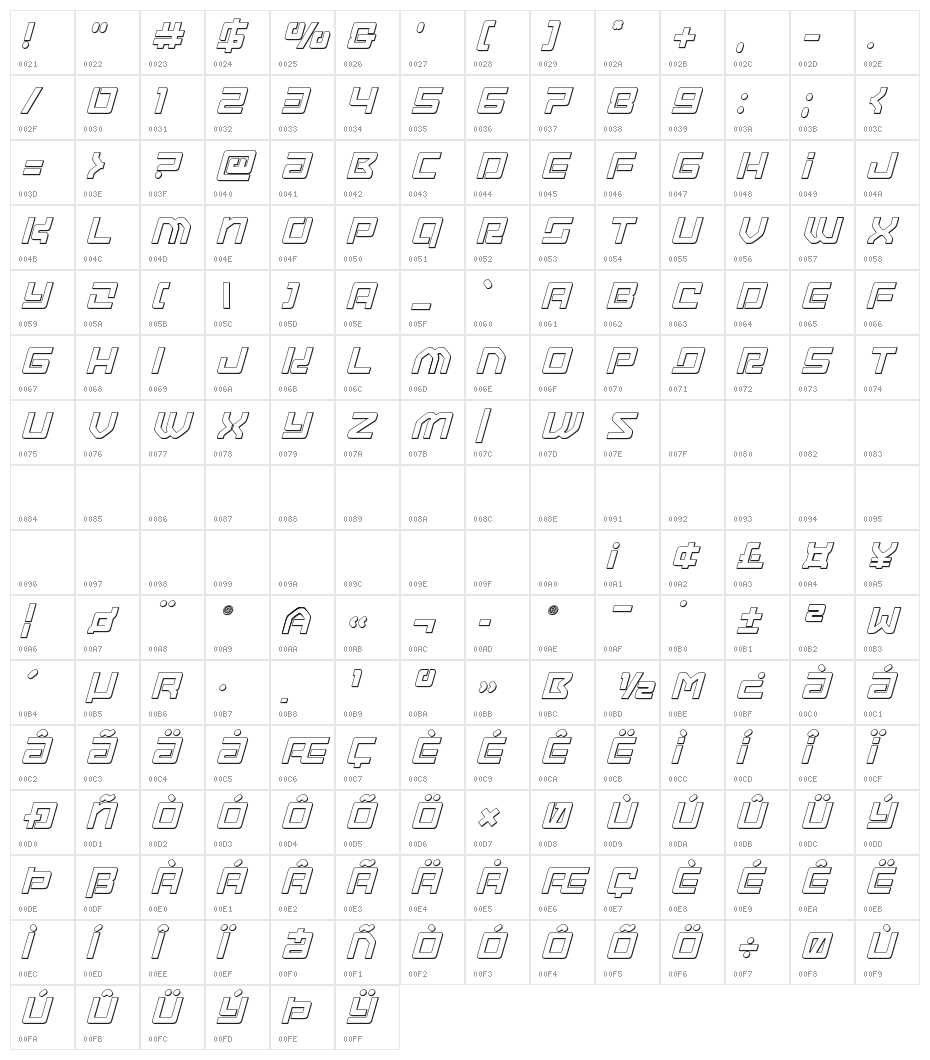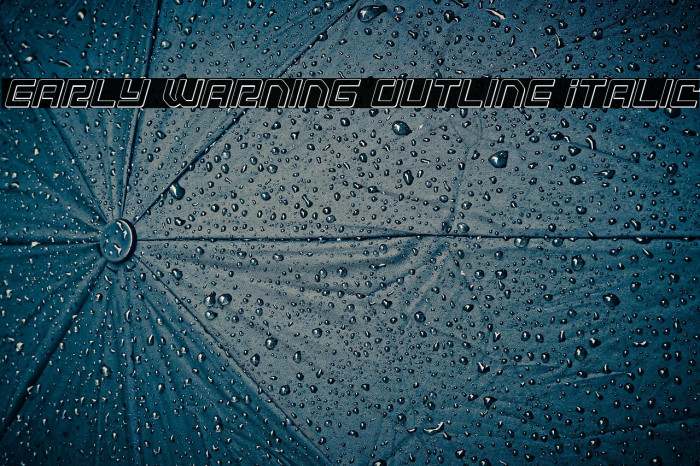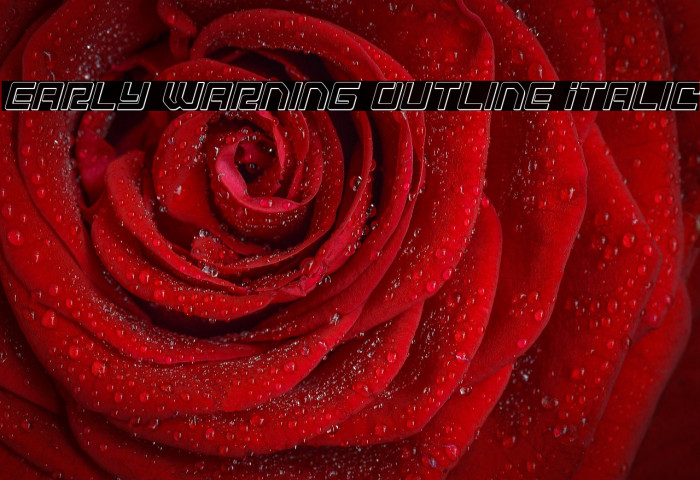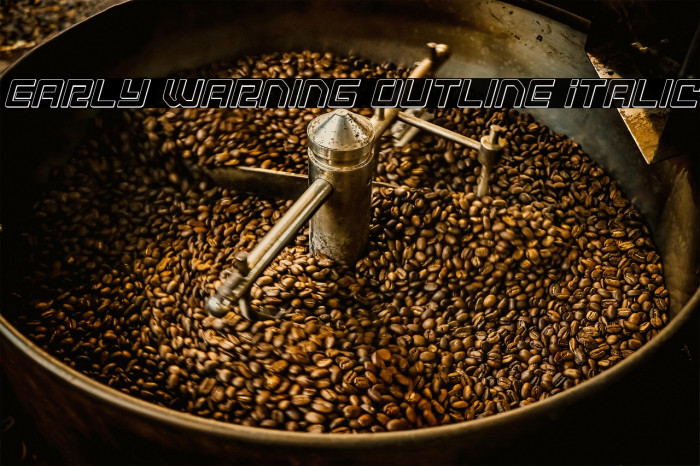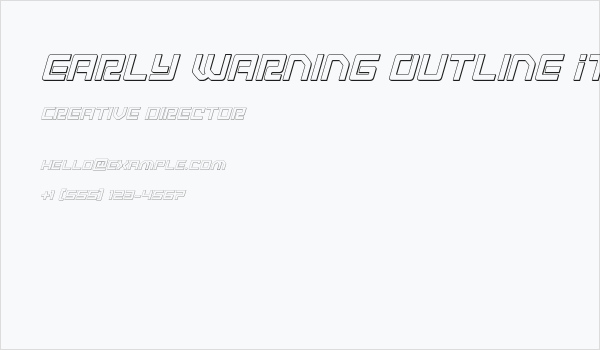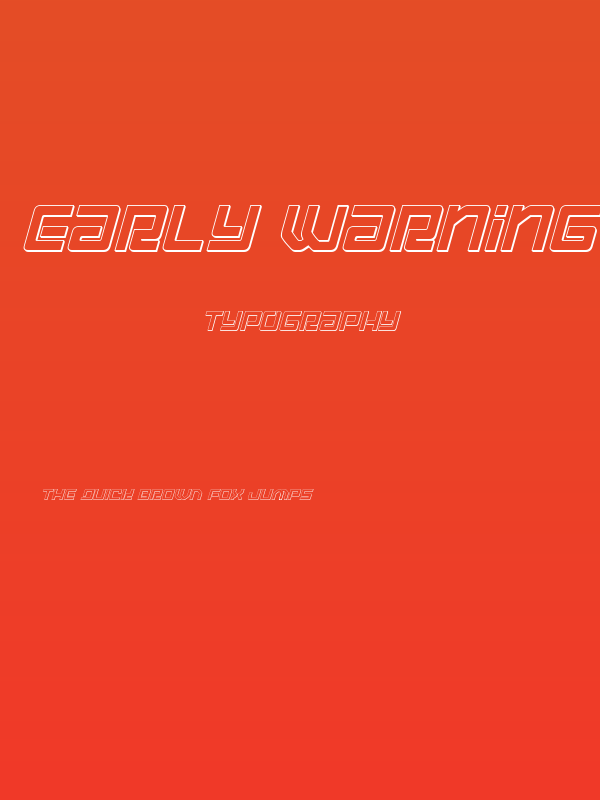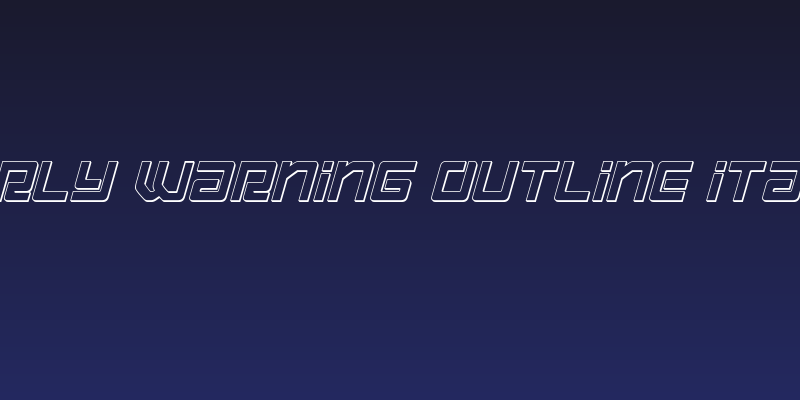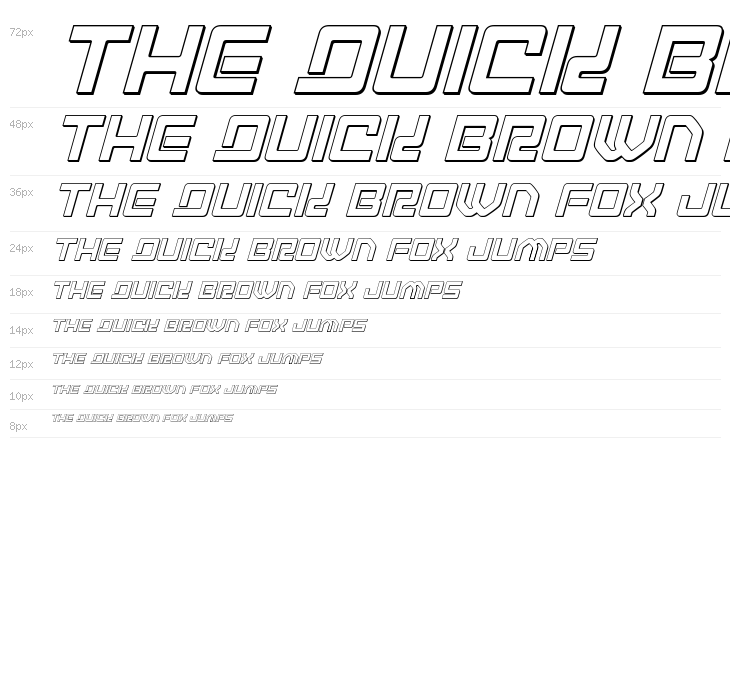
Early Warning Outline Italic Font
Early Warning Outline Italic Description
This font features a modern, futuristic design with an outline style that gives it a distinct, eye-catching appearance. The characters are italicized, adding a dynamic and forward-leaning aspect to the text. Each letter and number is crafted with precision, maintaining a consistent width and height, which contributes to its uniformity and readability. The outline effect creates a sense of depth, making it suitable for digital displays and print where a bold statement is desired. The font includes a full set of uppercase and lowercase letters, numbers, and a variety of special characters, ensuring versatility in use.
| Use Case | Headlines, Logos, Digital displays |
| Proposed Projects | Ideal for tech-related branding, futuristic posters, digital interfaces, and video game titles. |